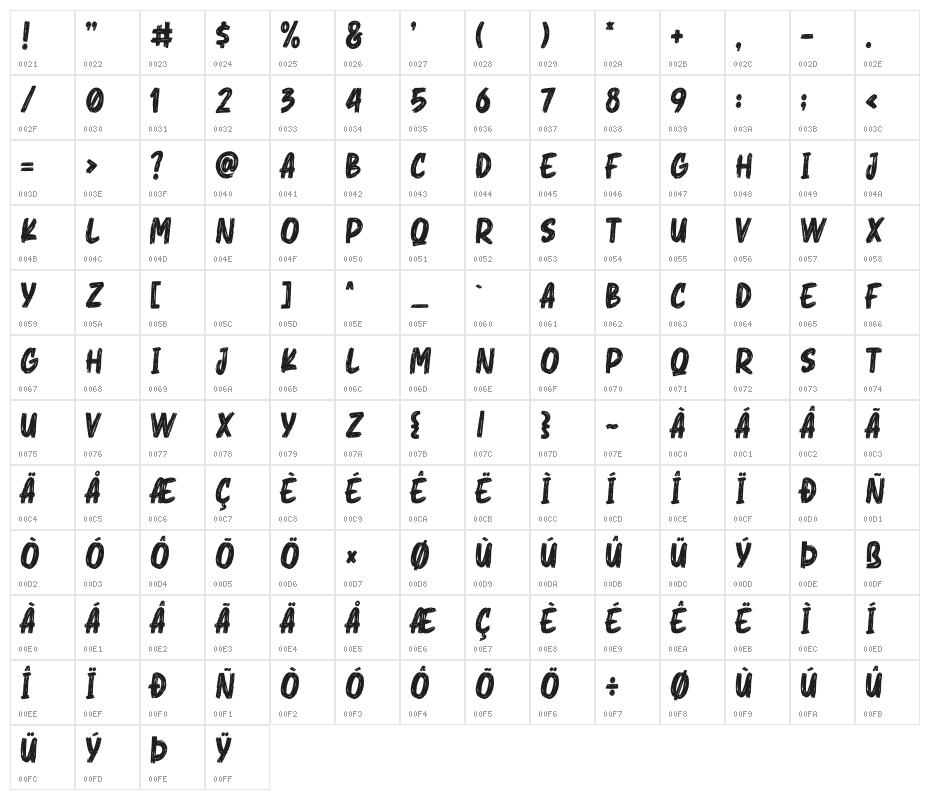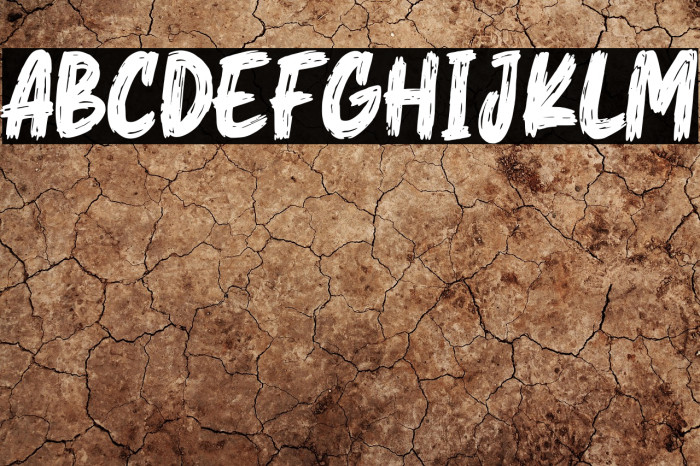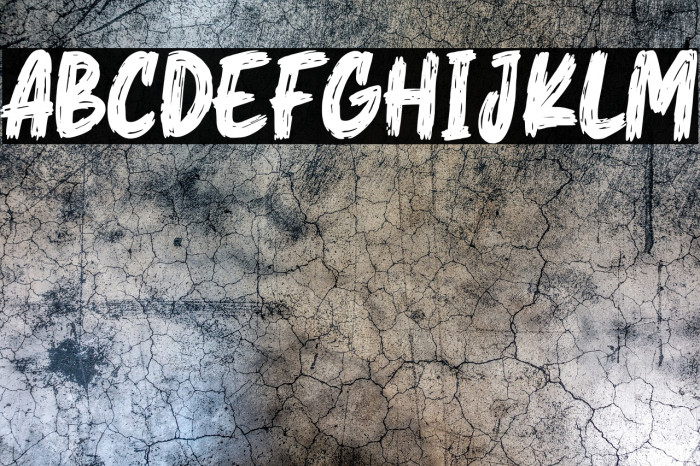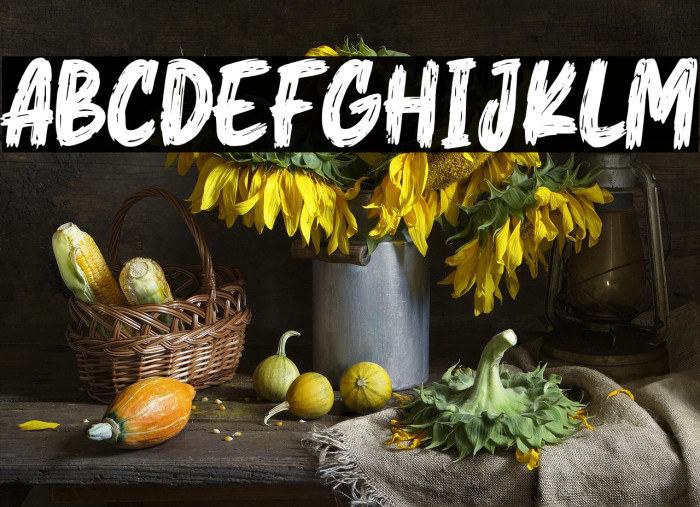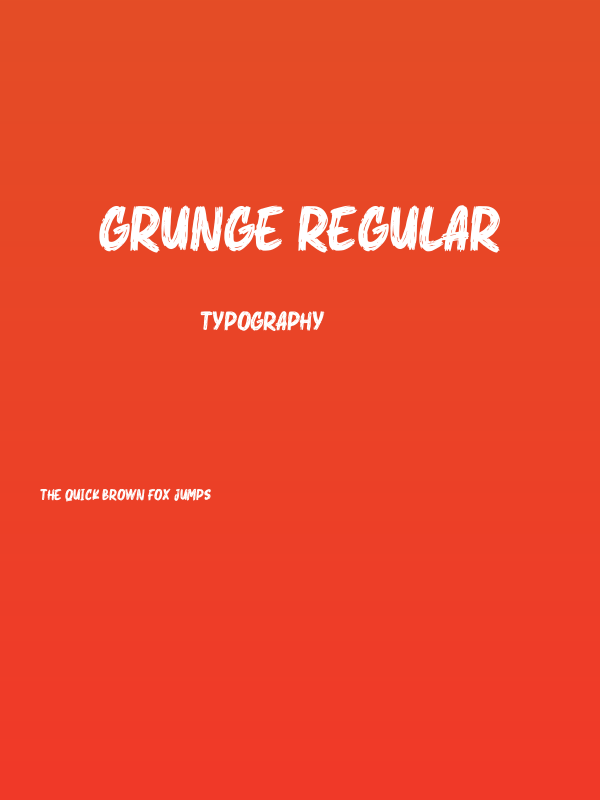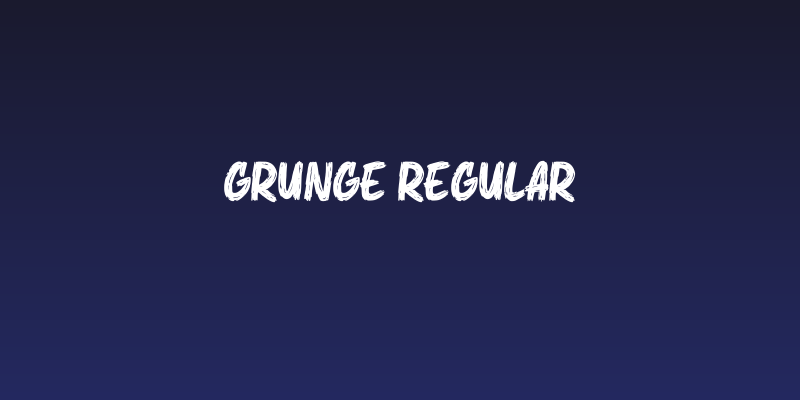
Grunge Regular Font
Grunge Regular Description
This font features a bold, distressed style with a grunge aesthetic. The characters are heavily textured, giving them a rough, hand-drawn appearance. Each letter has an irregular outline, contributing to the font's edgy and rebellious vibe. The strokes are thick and uneven, creating a sense of movement and energy. This font is ideal for projects that require a bold statement or a gritty, urban feel. It captures attention with its unique, artistic flair, making it suitable for creative and unconventional designs.
| Overall Style | Grunge, Urban, Edgy |
| Proposed Projects | Album covers, posters, streetwear branding, skateboarding graphics, and edgy editorial designs. |